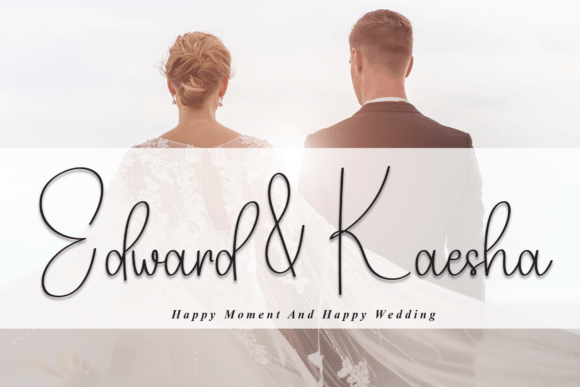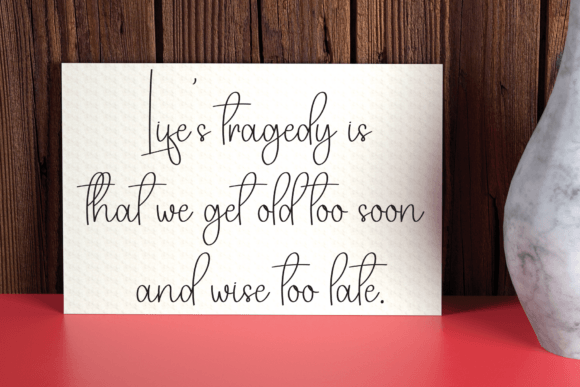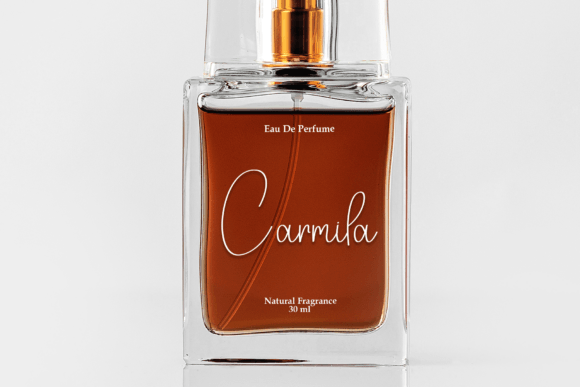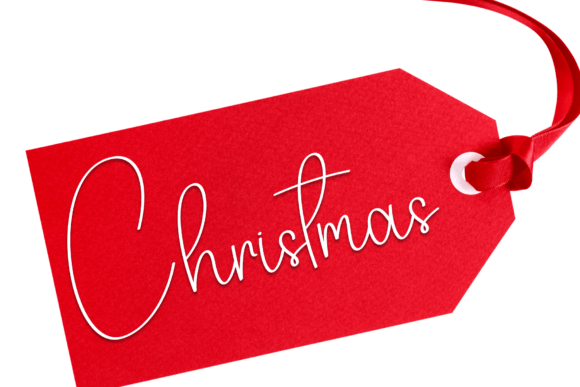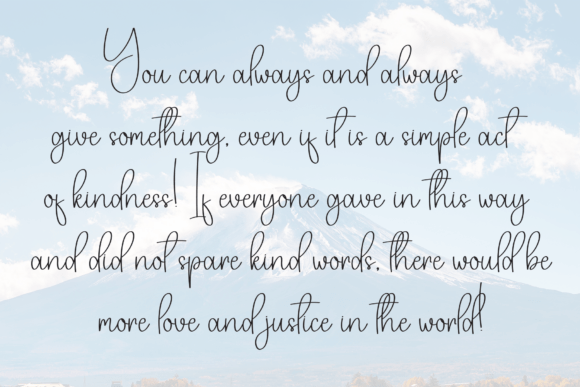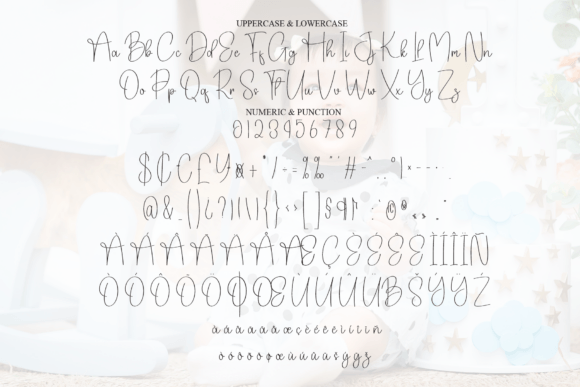
The Perfect Script for Your Next Design Project
Have you ever stared at a blank page, trying to find the perfect font to capture the essence of your design? You know, that moment when you want to create something truly special, but the words just won’t come together? For designers, this is a common struggle, but what if I told you that there’s a font that can make all the difference?
Meet the Babyday Font, a beautiful handwritten script that exudes elegance and playfulness. Its flowing lines and smooth curves give it a personal touch, perfect for creating stunning designs like cards, logos, or invitations. Whether you’re a seasoned pro or just starting out, the Babyday Font is a valuable addition to your design arsenal.
With its versatility and artistic flair, the Babyday Font is sure to elevate your designs and leave a lasting impression on your audience.
Babyday Font Key Features
- Unique Characteristics: This font features a unique, hand-drawn style with a modern twist, making it ideal for creating eye-catching and playful designs.
- Character Set: Babyday Font includes a wide range of characters, including uppercase and lowercase letters, numbers, punctuation marks, and special characters.
- Language Support: The font supports multiple languages, including English, Spanish, French, German, Italian, and many more, making it a great choice for international designs.
Designer Review: Babyday Font
Overall, I’d say the Babyday Font is a cute and playful font that’s perfect for designing nursery decor, children’s products, or any project that needs a touch of whimsy. ✨ The font’s rounded edges and childlike charm make it instantly appealing, and the wide range of characters available ensure that you can use it for everything from headings to body text.
One of the things I love about Babyday Font is its versatility. ✨ It works well in both digital and print formats, and the font’s subtle texture adds depth and visual interest to your designs. ✨ The font also comes with a variety of styles, from bold and playful to delicate and elegant, making it easy to find the perfect fit for your project.
- ⚠️ Limited character set: While the font comes with a wide range of characters, it’s not as extensive as some other fonts on the market.
- ⚠️ Limited language support: The font primarily supports Latin-based languages, which may limit its use for projects that require support for other languages.
Overall, I think the Babyday Font is a great addition to any designer’s toolkit. While it has some limitations, its versatility and charm make it a standout choice for projects that need a touch of whimsy and playfulness.
Tips for Getting the Most Out of Babyday Font
Use Babyday Font for designs that require a playful, childlike feel. It’s perfect for:
- Children’s book covers and illustrations
- Marketing materials for kids’ products or services
Babyday Font is ideal for designs that need to convey a sense of fun, innocence, and playfulness. It’s commonly used in:
- Children’s product packaging
- Infant and toddler advertising
- Family-friendly event promotions